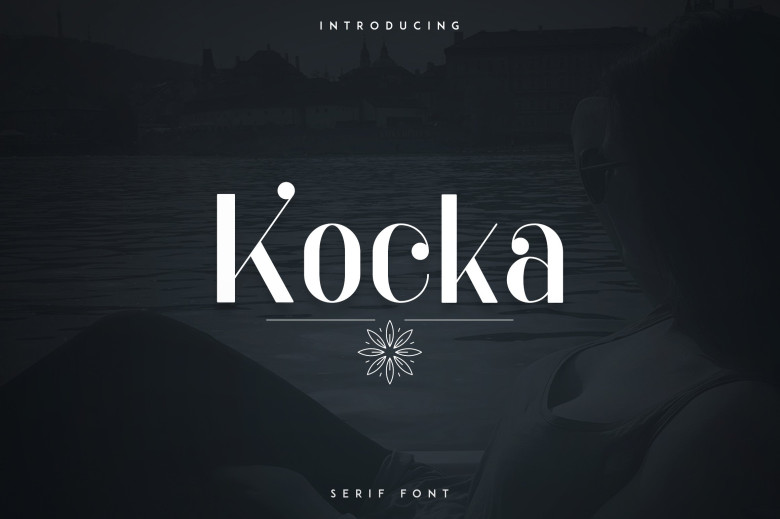
Kocka Font
Kocka is a sans-serif font that has a unique and sophisticated appeal. In any sense, Kocka will become an effective addition to your font gallery. You can never go wrong with using a font like this in your designs due to its unique feature to brighten up any masterpiece effectively.
Kocka Serif Font